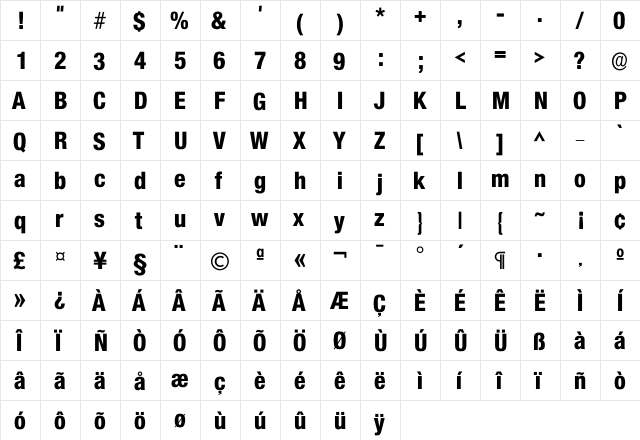
Colnova ExtraBold
Design Context for Colnova Typeface
Colnova offers clean, dependable letterforms without strong stylistic allegiance, making it a practical choice for designers who need flexibility. The heavy weight commands attention and anchors typographic hierarchies.
Pro Tip: Use Colnova in both headline and body roles to test its range before committing to a single application.